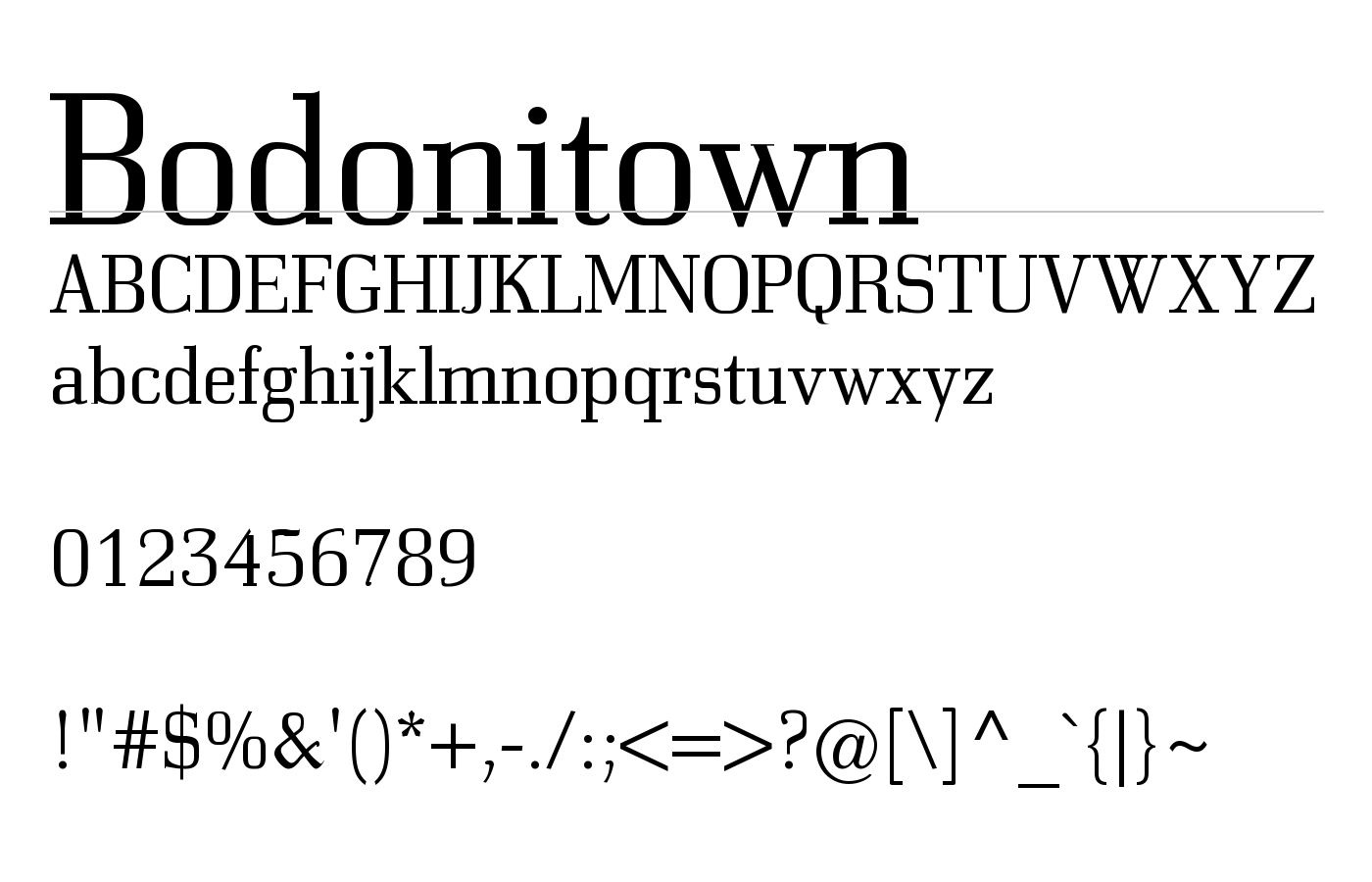
Bodonitown is a slender slab serif font with a refined, vintage feel, featuring consistent stroke contrast and a tall x-height that lends it excellent readability. Its narrow letterforms and sharp, unbracketed serifs create a sophisticated yet industrial look, making it well suited for editorial headlines, branding with a retro-modern twist, and stylish packaging designs. This font combines elegance with a touch of mechanical precision, perfect for projects seeking a timeless and distinctive character.
Bodonitown Font
About Bodonitown Font